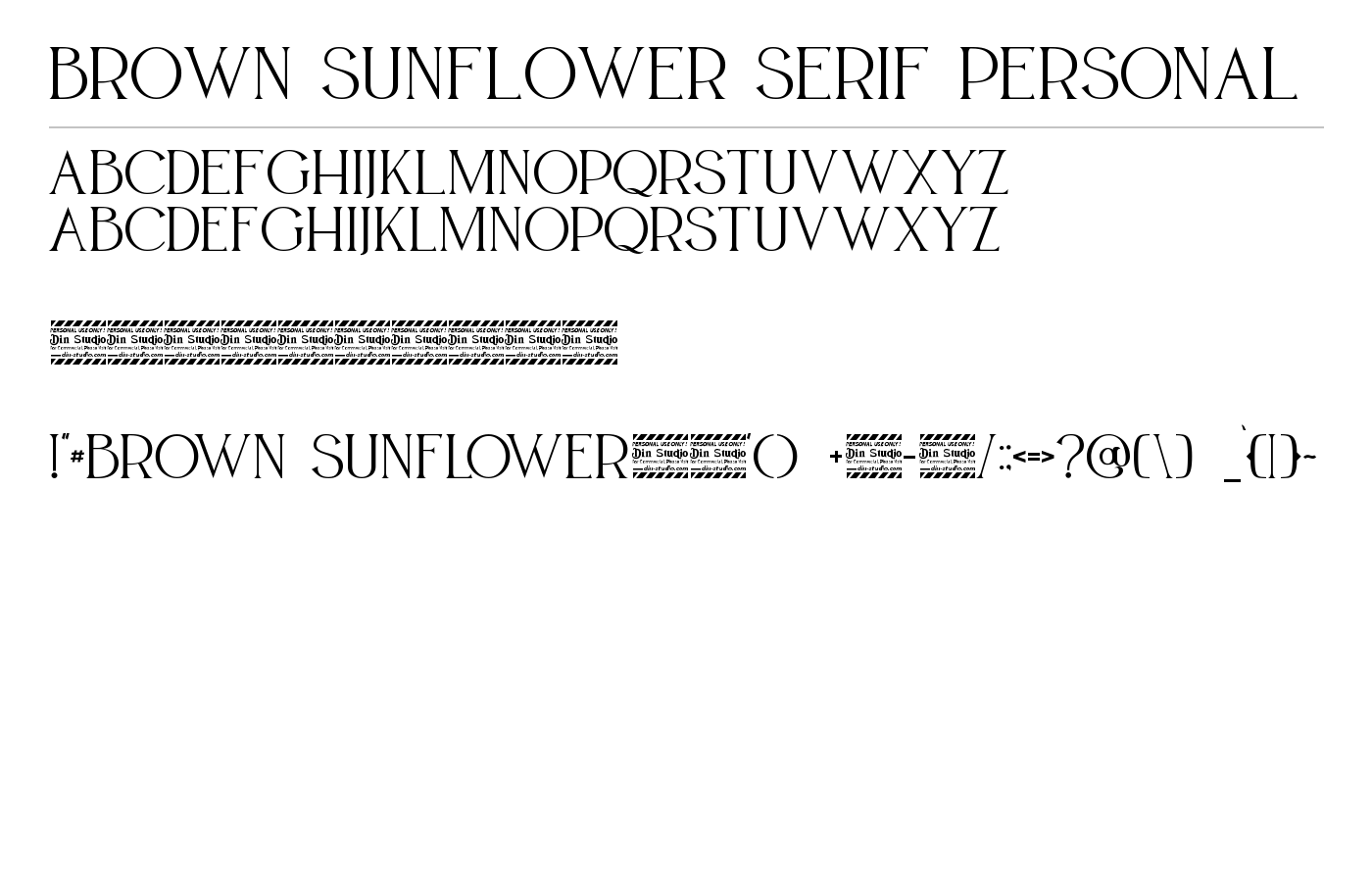
Brown Sunflower is a delicate serif font with an elegant, high-contrast design featuring thin, sharp strokes and subtle bracketed serifs. Its tall, narrow letterforms and refined details give it a sophisticated, classic feel, making it ideal for luxury branding, editorial headlines, and stylish print projects where a touch of grace and formality is desired.
BROWN SUNFLOWER Font
About BROWN SUNFLOWER Font